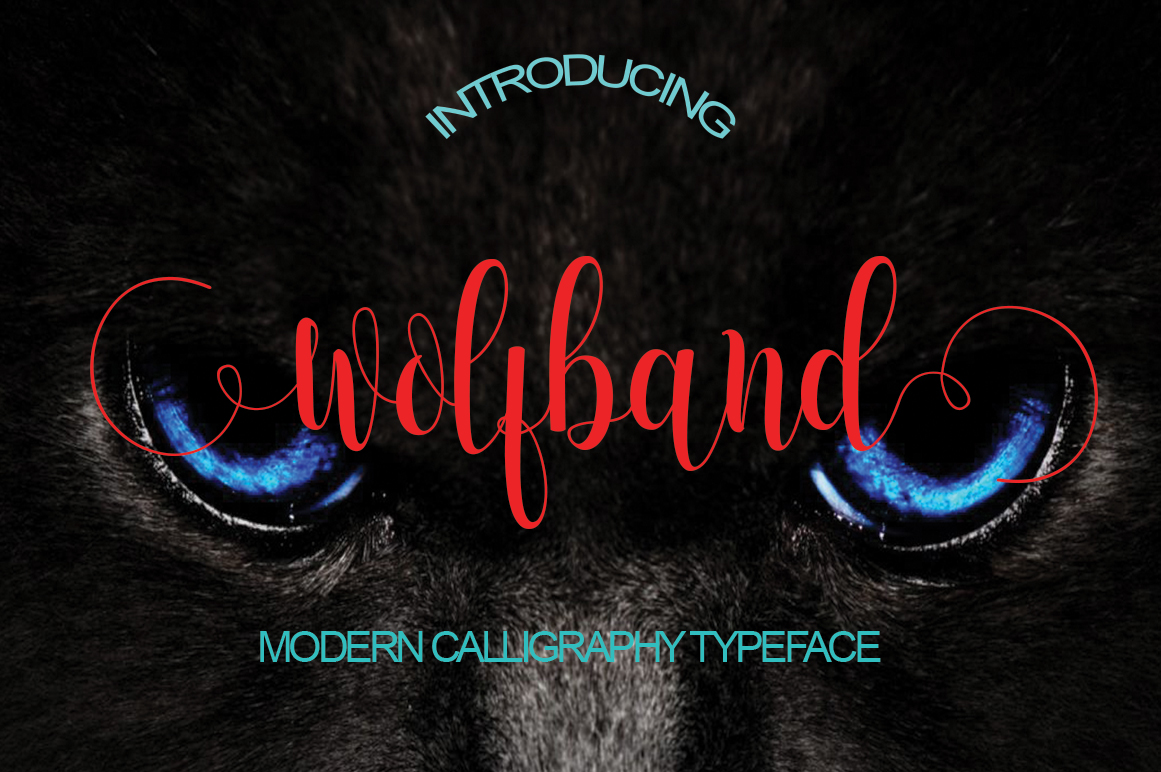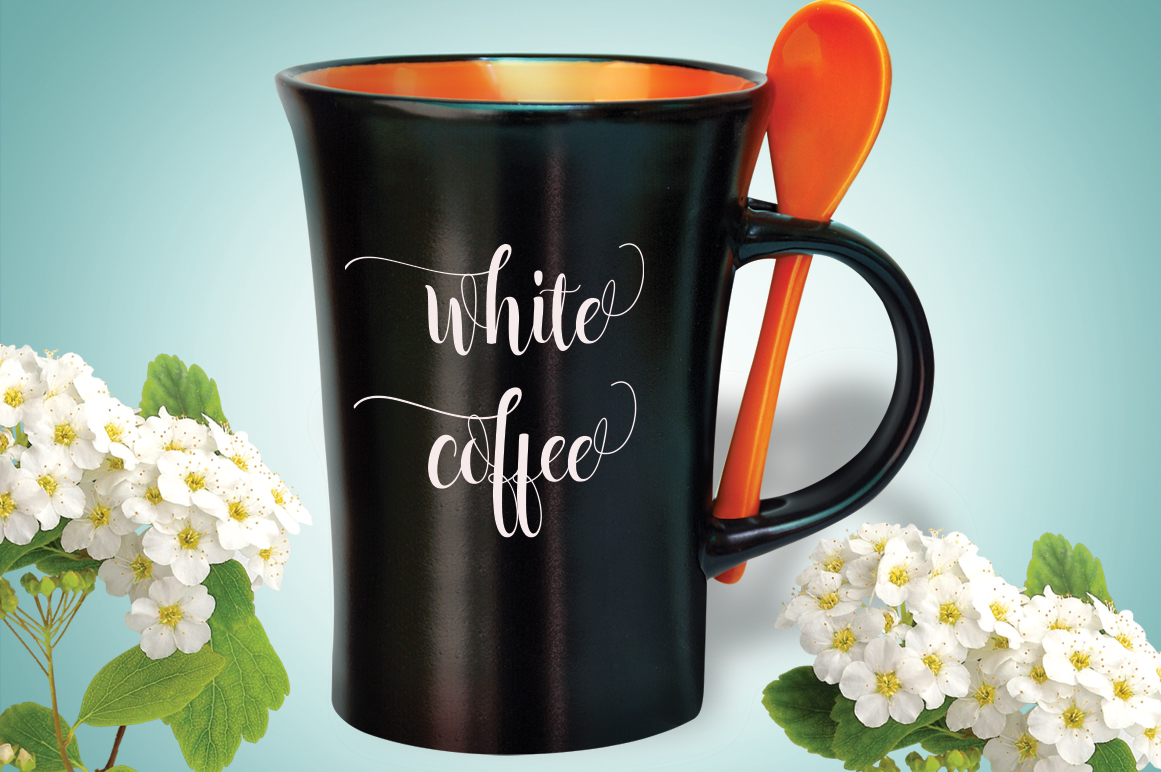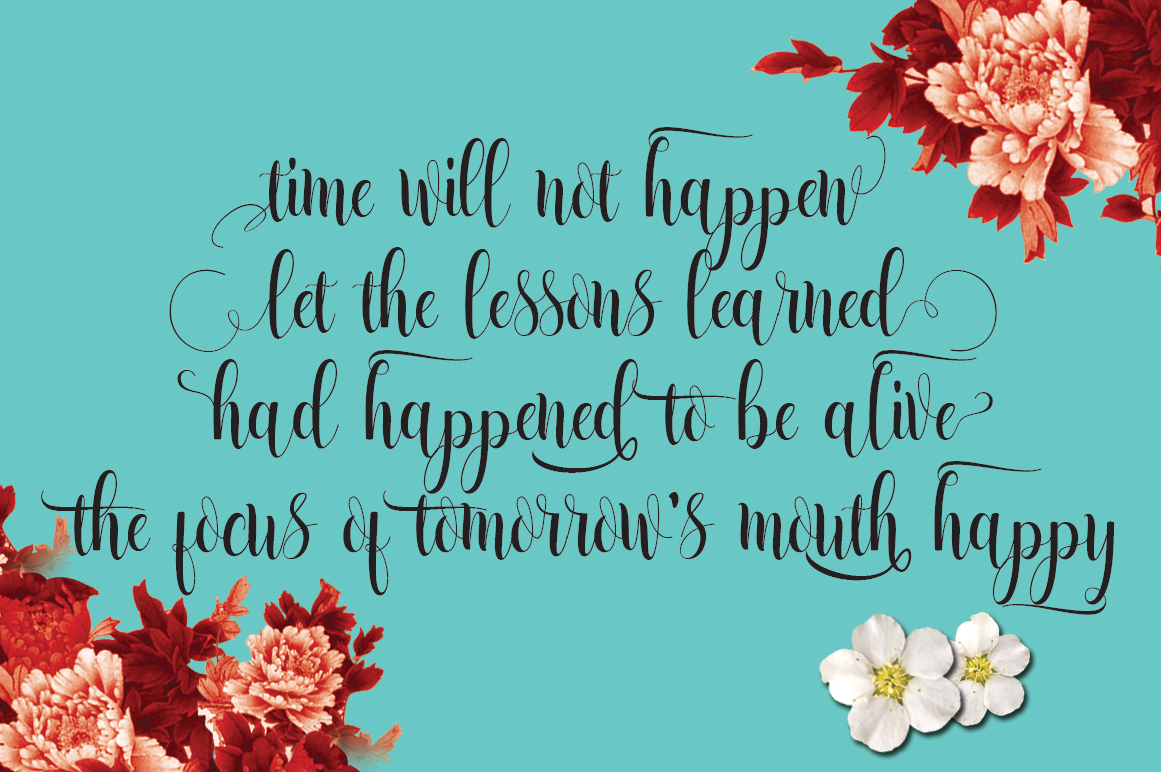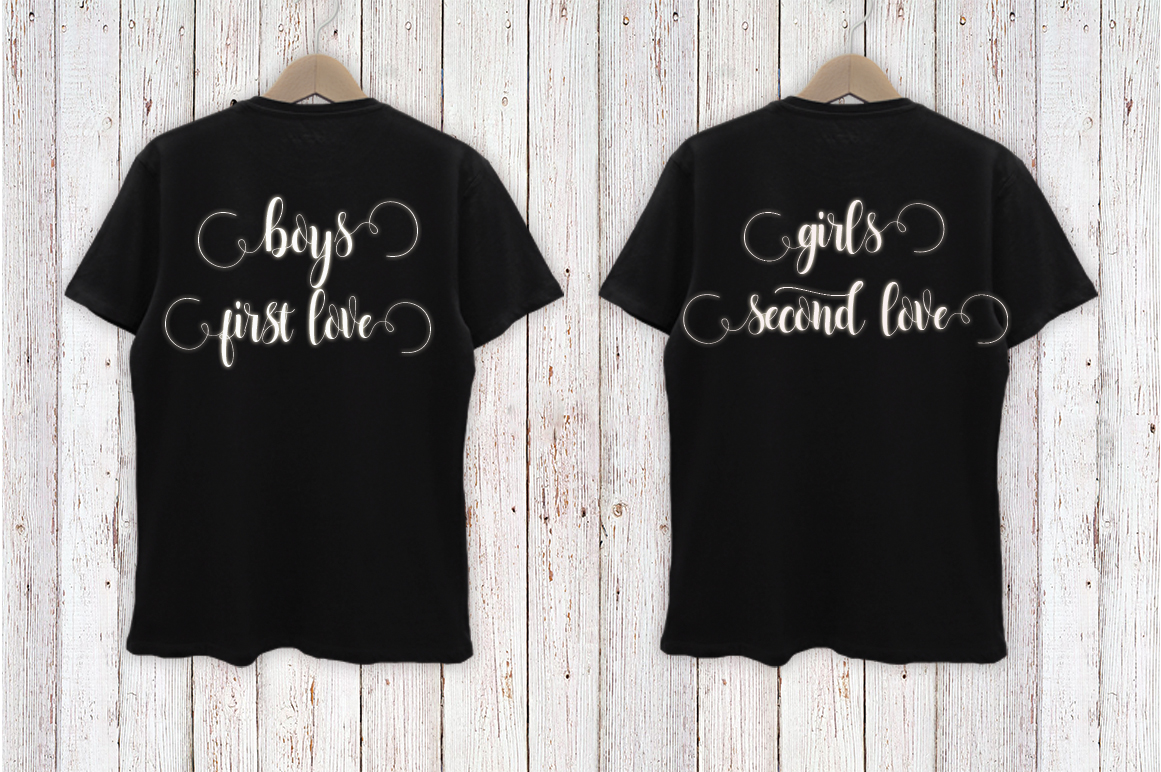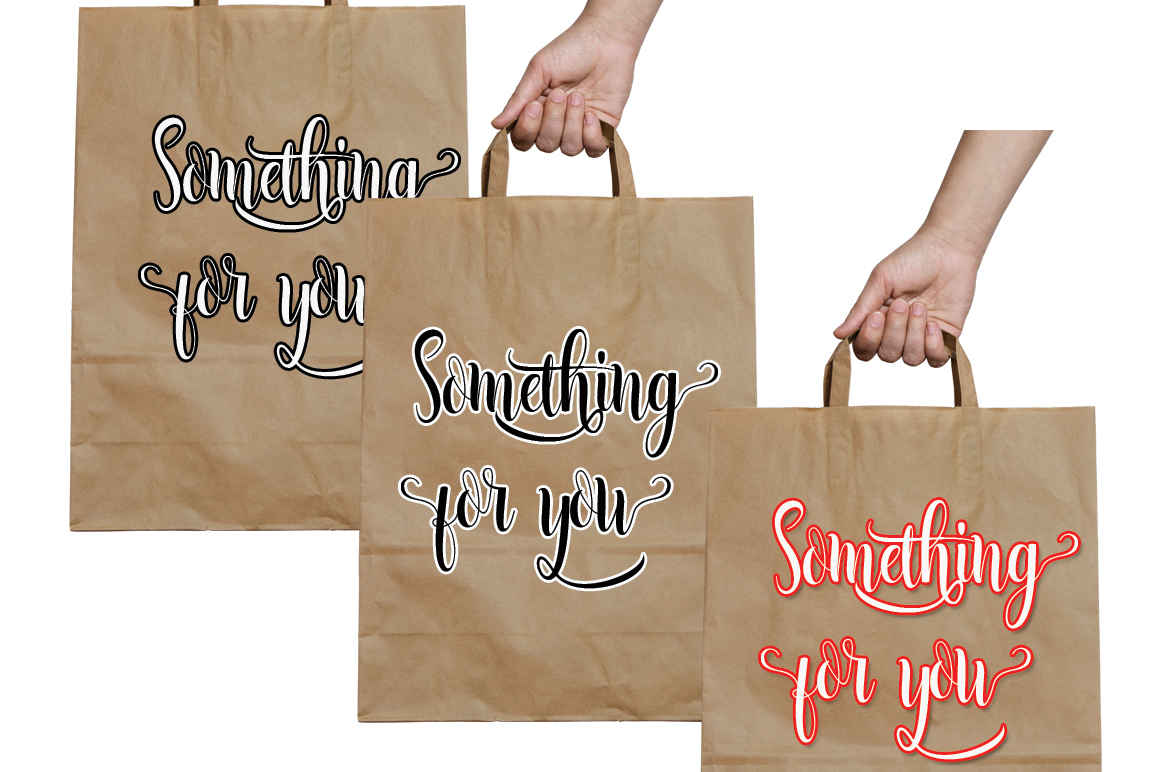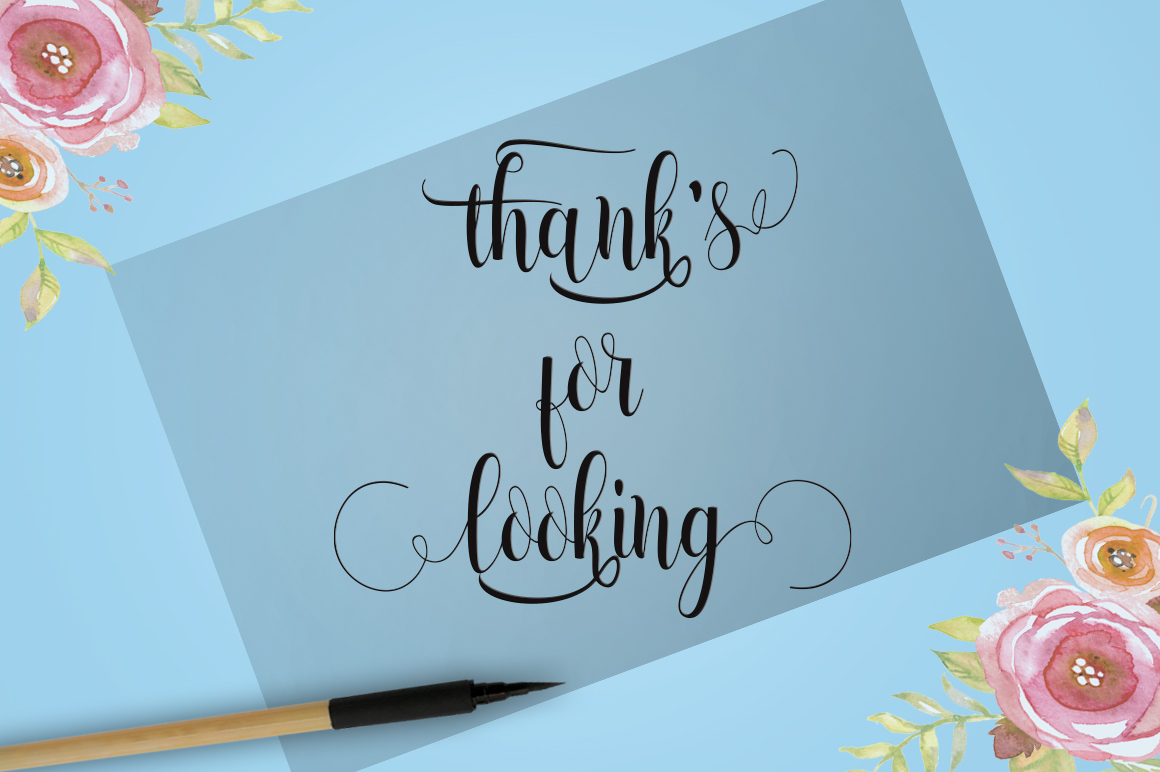
HomeScript FontsWolfband Font Script Fonts Wolfband Font FacebookXPinterestWhatsApp Wolfband Font Poster 2 Wolfband Font Poster 3 Wolfband Font Poster 4 Wolfband Font Poster 5 Wolfband Font Poster 6 About Wolfband Font Wolfband is a modern handwritten calligraphy style font. This font, created by StudioRz is PUA encoded. DOWNLOAD ON CREATIVE FABRICAThis font is sold and delivered by Creative Fabrica. Font Canyon may earn a commission if you buy through this link. People also explored Bundle Calligraphy Basketball Mania Font Poetry & Fiction Font Urban Invert Font Omarta – Signature Font Angelia Font Northing Font October Story Font Unika Font 283 0 TagsWolfband Font Previous articleGraficx FontNext articleMontellia Font LEAVE A REPLY Cancel reply Comment: Please enter your comment! Name:* Please enter your name here Email:* You have entered an incorrect email address! Please enter your email address here Website: Save my name, email, and website in this browser for the next time I comment. Personal Use Free Yesstea Personal Use Free Read more about this font Stone Garden Personal Use Free Read more about this font Uchiyama Personal Use Free Read more about this font Lion Teen Personal Use Free Read more about this font BLOG 5 Fonts That Will Dominate Design Trends in 2026 5 Fonts for 2026 That Will Dominate Design Trends Typography plays a critical role in visual communication, and as we look ahead to 2026, itβs... Where to Buy American Fonts Online in 2024 How to Cut Any Font on Cricut: Convert a Font to SVG (Free) Elegant Wedding Invitation Fonts β Handwritten & Script Fonts